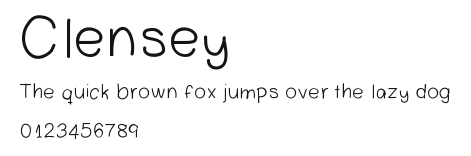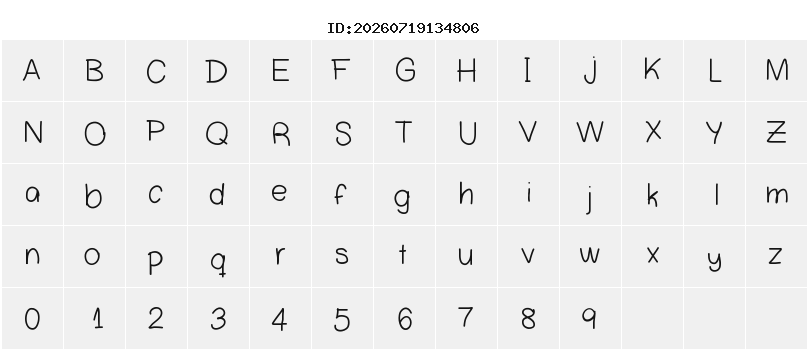
Clensey Preview
• Font Name: Clensey
• Full Font Name: Clensey
• PostScript Name: Clensey
About Clensey.ttf
Clensey.ttf is a modern, elegant sans-serif font designed for ultimate readability and visual harmony. Perfect for branding, headlines, web design, and print materials.